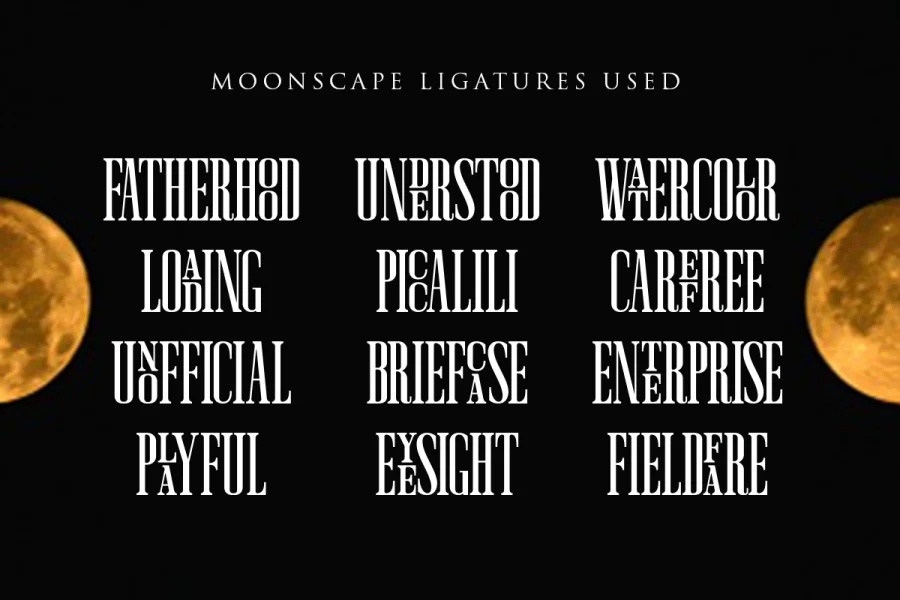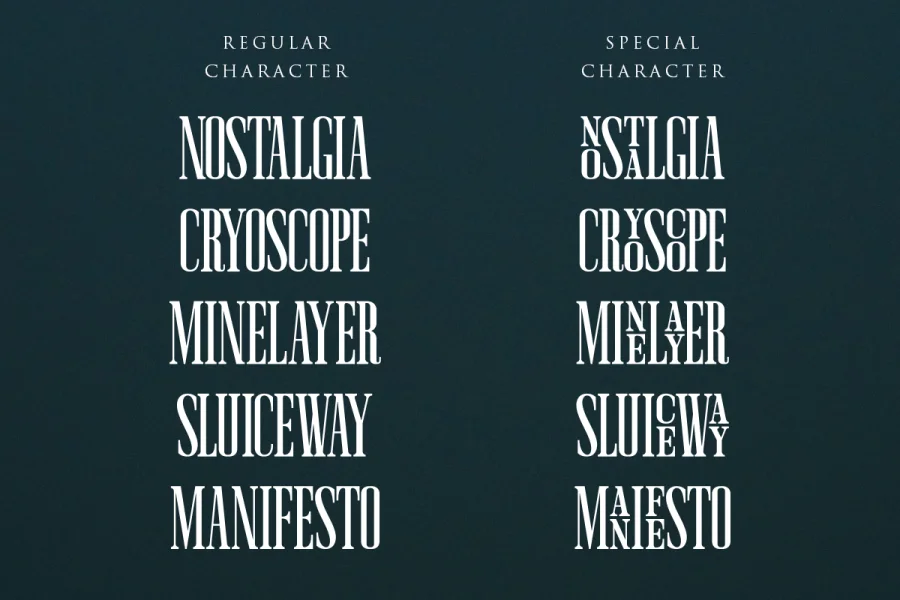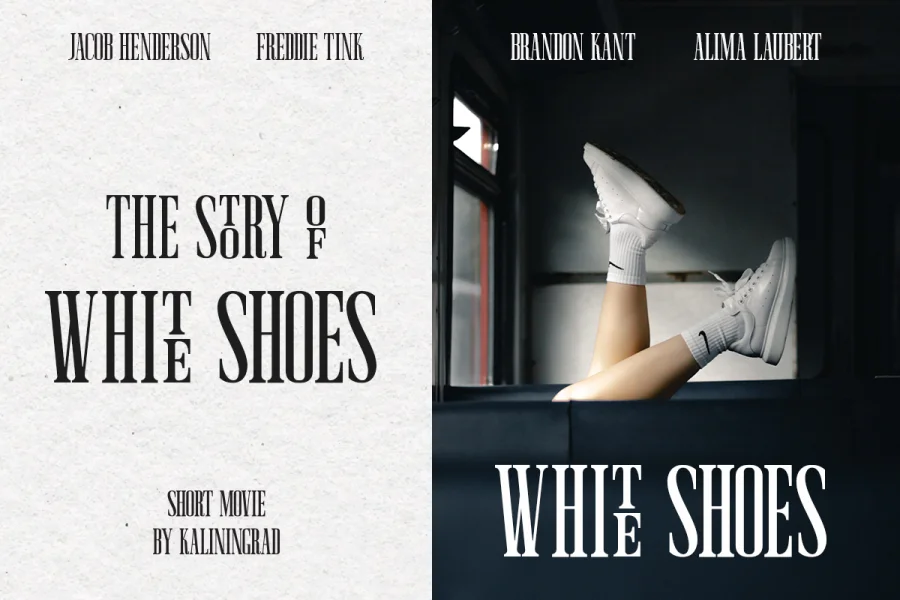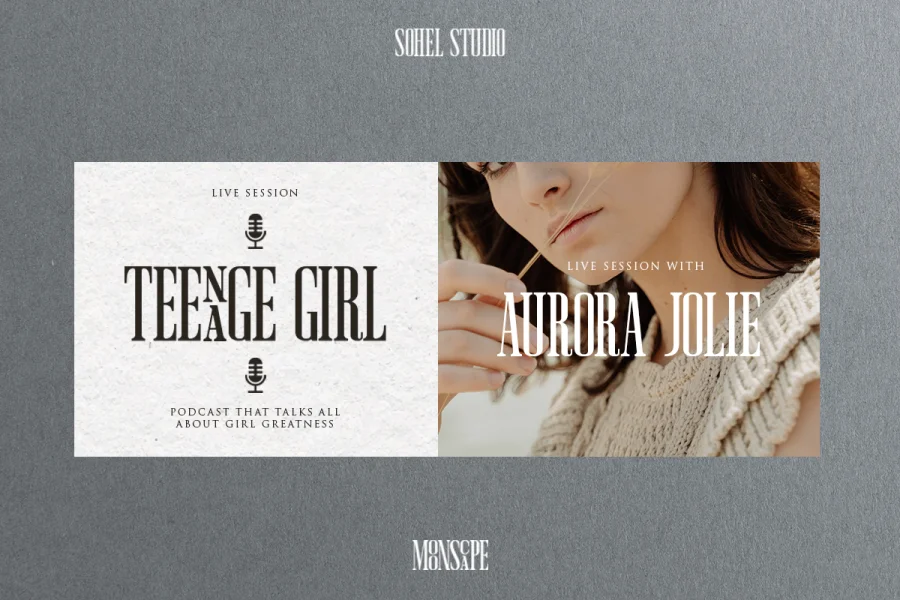
“Moonscape” is a Condensed serif that has 40 Unique Ligatures. Depicted to provide a confident and impressive base headline, while still feeling warm and welcoming. there are 4 different styles that you can apply in your design projects. This typeface is perfect for an book or movie title design, fashion brand, magazine, clothes, lettering, quotes, social media posts and so much more.